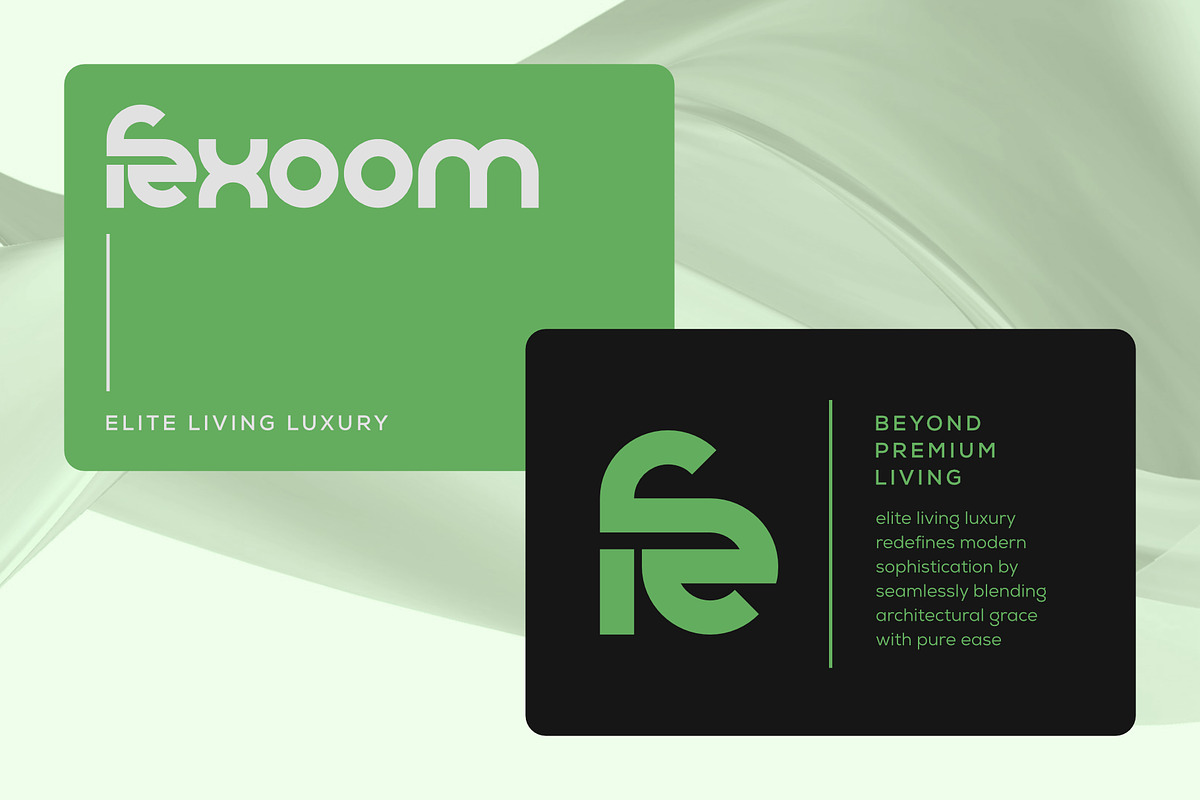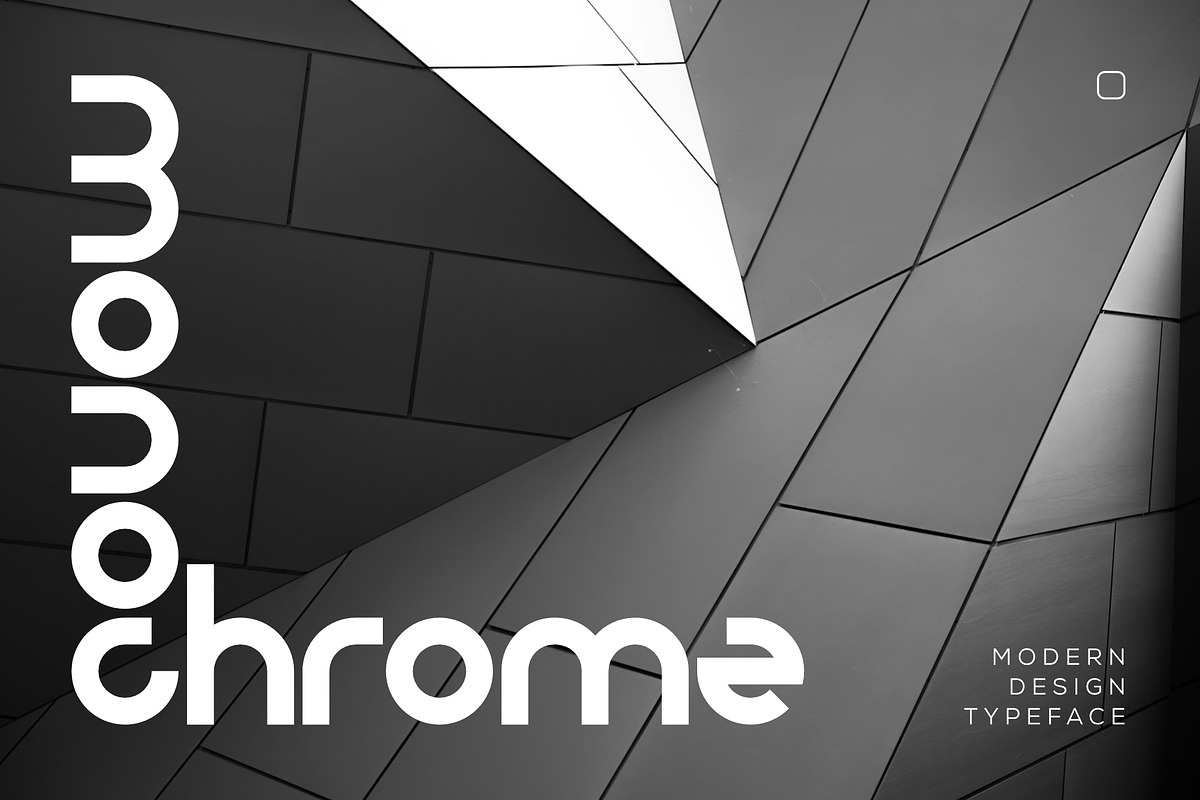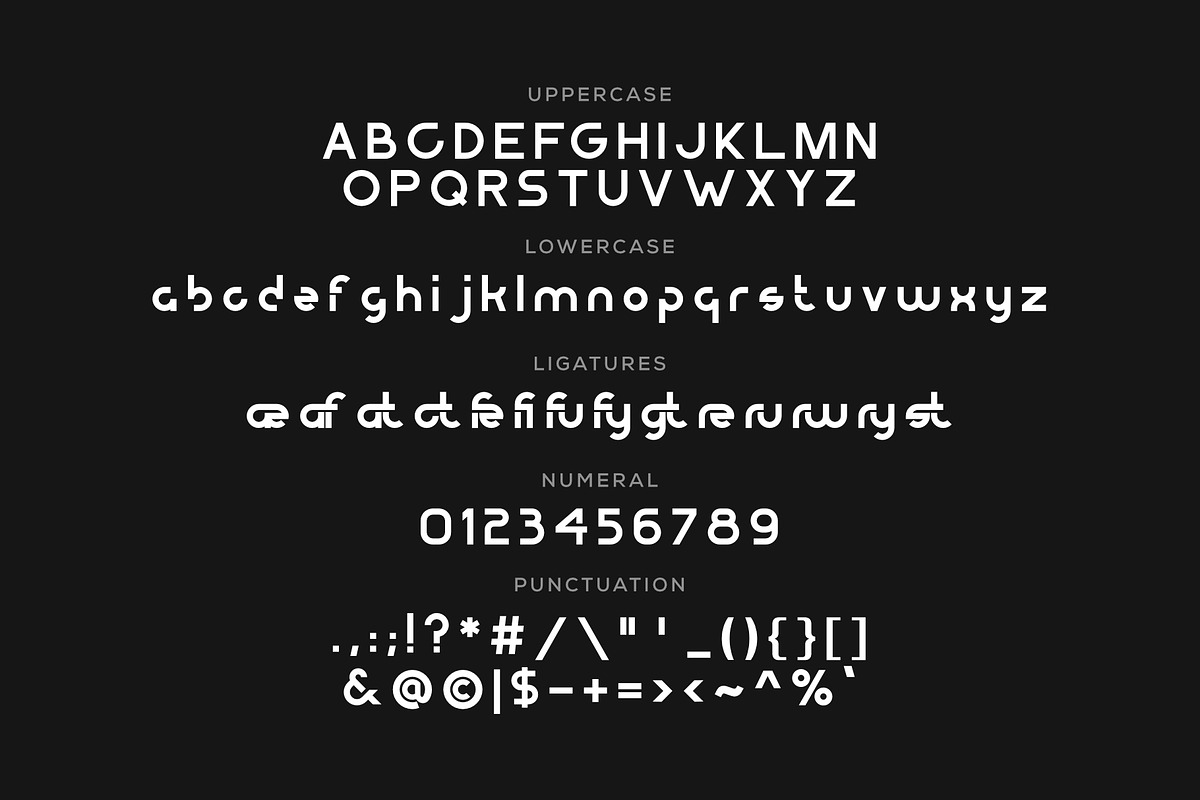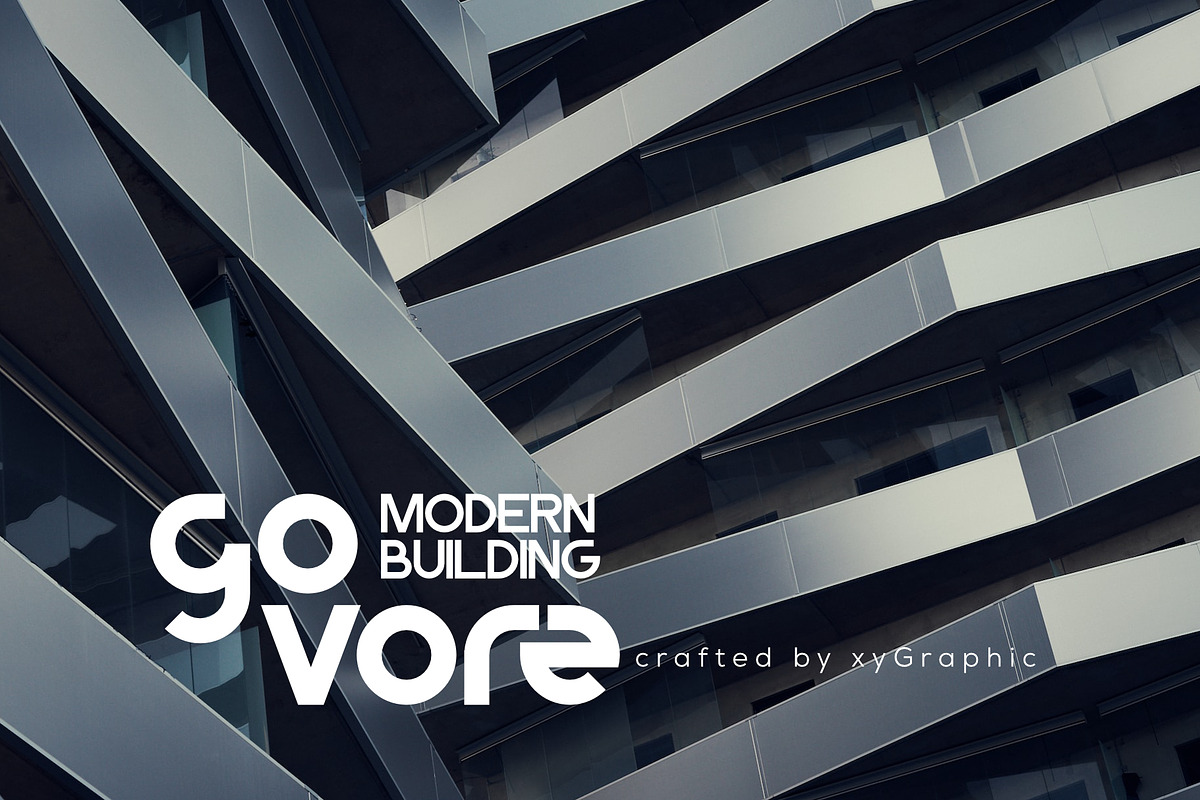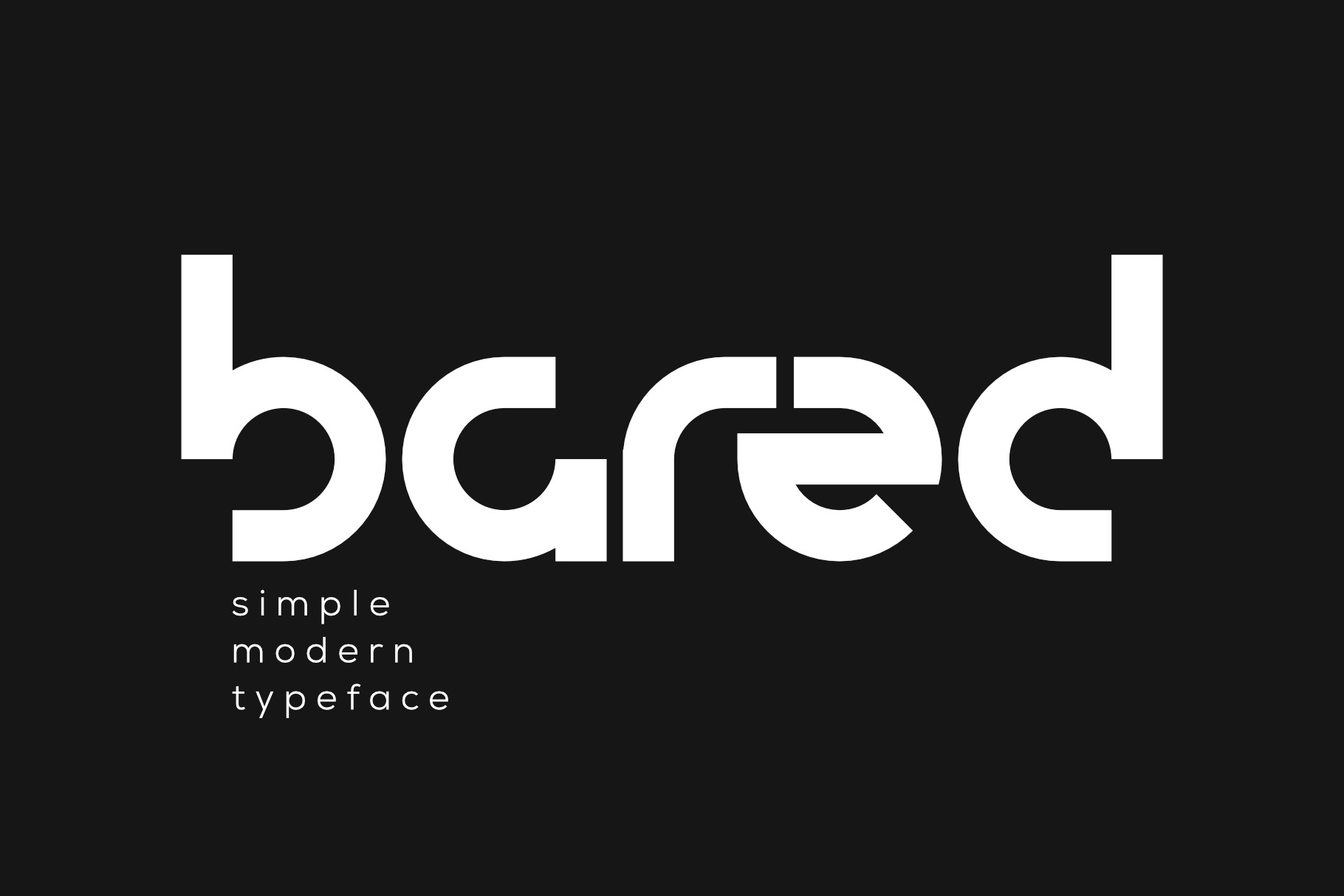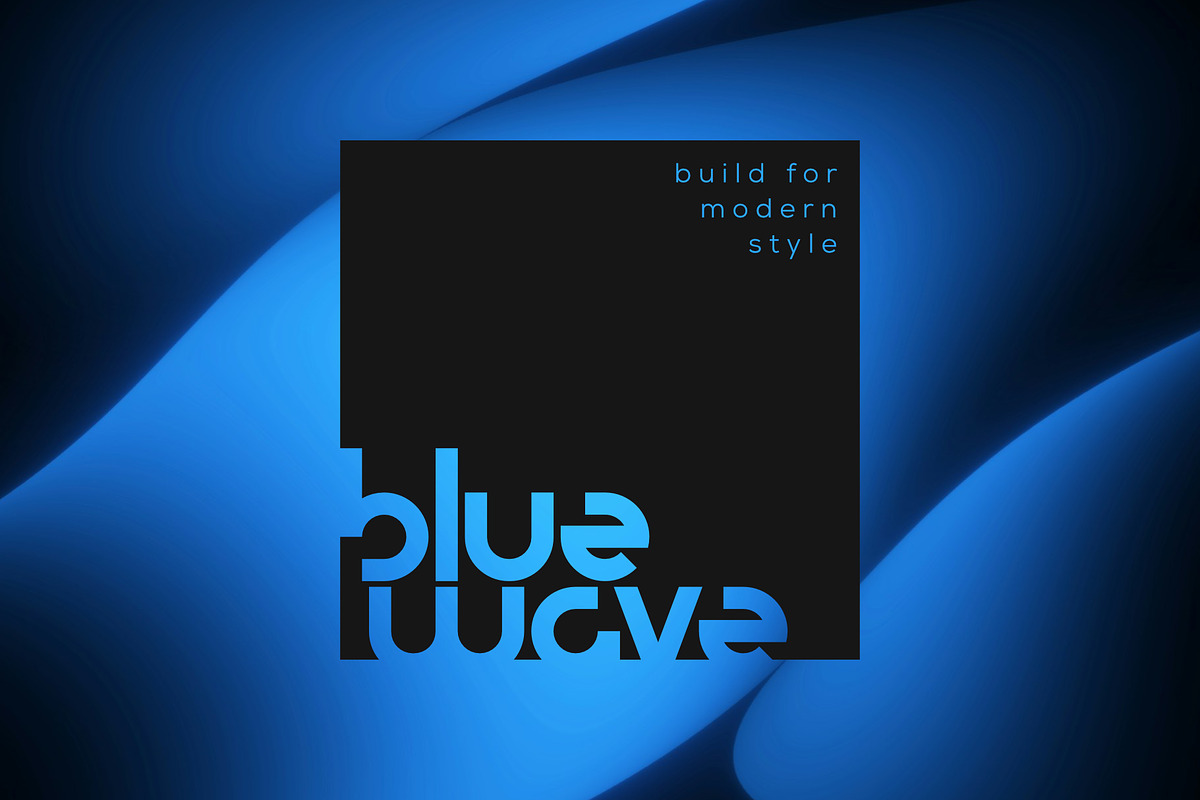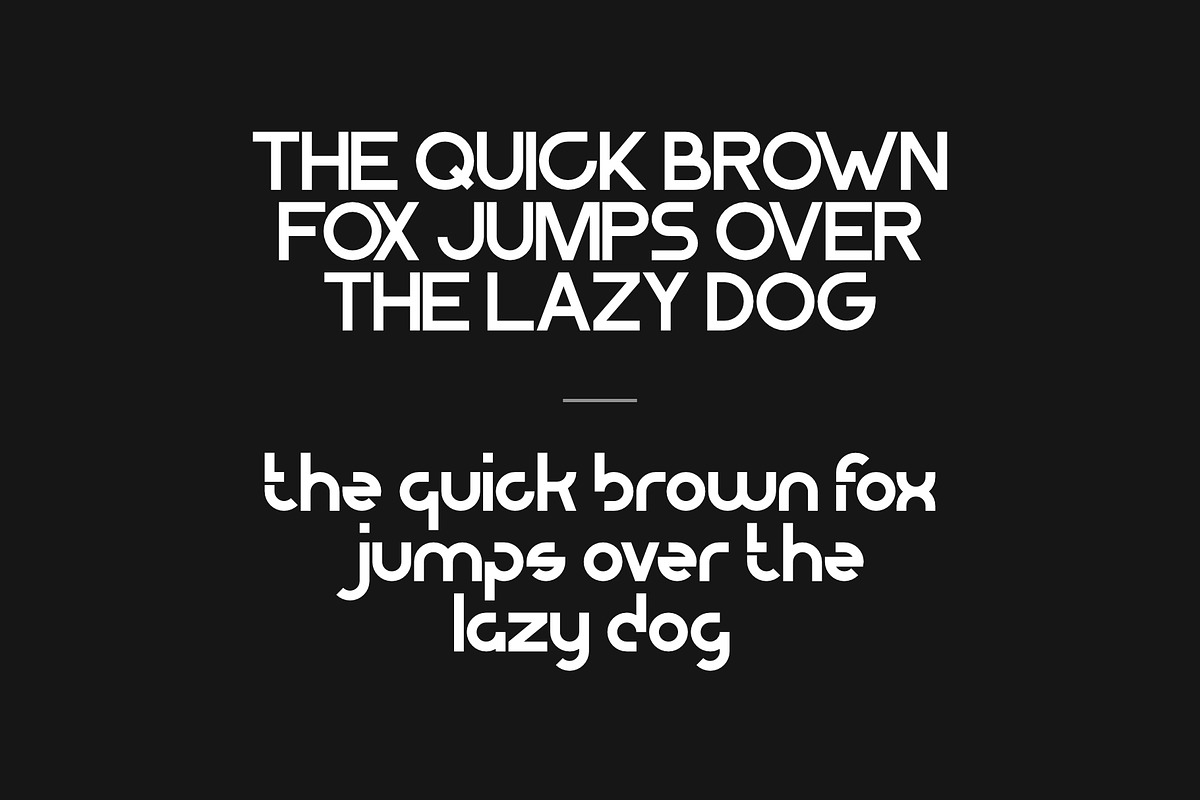
Bared - Simple Modern Typeface
Bared is a clean, contemporary sans-serif typeface designed for modern branding, editorial, and digital use. With its geometric yet approachable letterforms, balanced proportions, and subtle unique details, Bared delivers clarity and sophistication across headlines, logos, packaging, and interface design.
The font features a full character set including:
Uppercase & lowercase
Numerals
Extensive punctuation & symbols
Perfect for designers who need a versatile, minimalist typeface that feels both timeless and current.